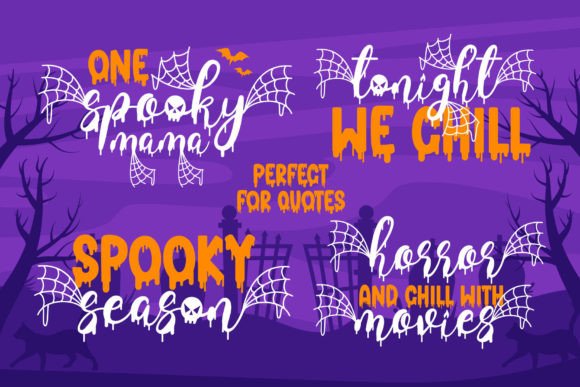
Scary Night Duo Font
Scary Night is a fun duo font (Handwritten and Display) with a spooky and cute decorative Halloween theme. Masterfully designed to become a true favorite, this font has the potential to bring each of your creative ideas to the highest level!
Scary Night is a fresh and unique typeface suitable for Halloween-themed design purposes such as t-shirts, books, posters, and more.